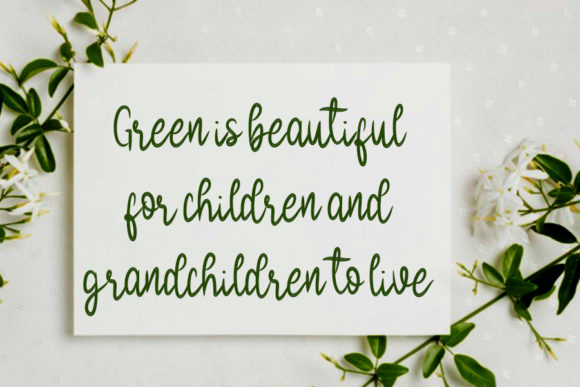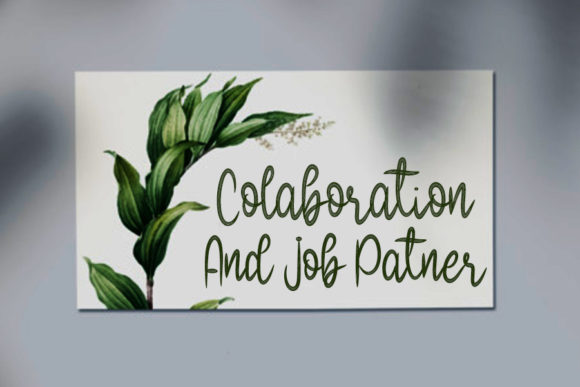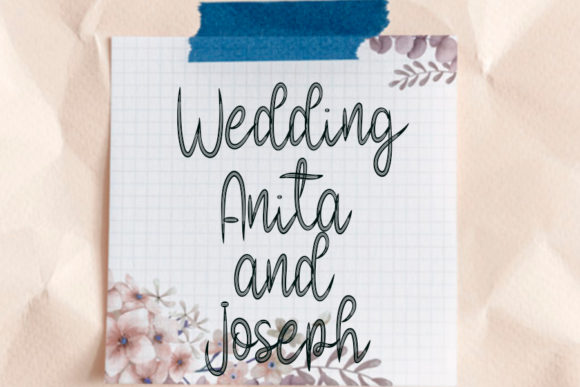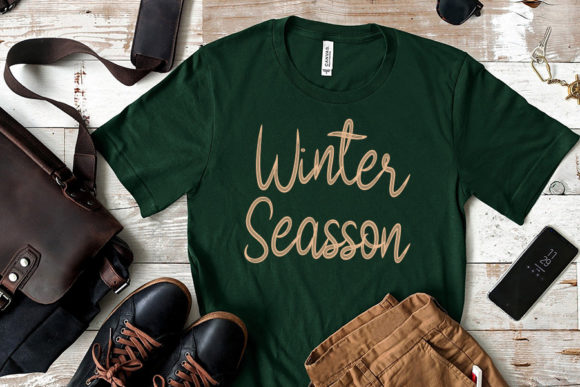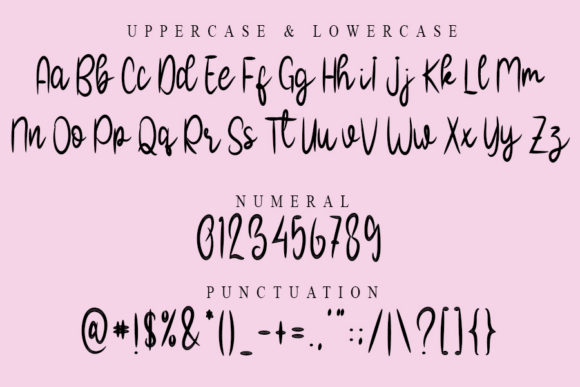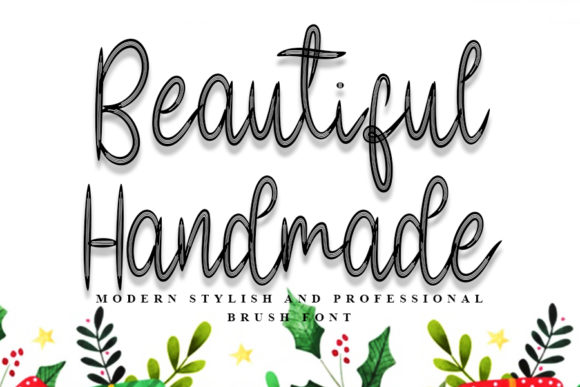
Introducing Beautiful Handmade Font: Elevate Your Designs with a Personal Touch
In the world of digital design, fonts play a crucial role in conveying messages, evoking emotions, and creating a lasting impression. For designers, crafters, and DIY enthusiasts, finding the perfect font can be a game-changer. This is where Beautiful Handmade Font comes in – a unique, handwritten font that adds a touch of personality and realism to your designs. In this article, we’ll explore the features, benefits, and uses of Beautiful Handmade Font, and how it can help you take your designs to the next level.
What is Beautiful Handmade Font?
Beautiful Handmade Font is a carefully crafted, handwritten font that mimics the imperfections and uniqueness of handwriting. Each letter, word, and sentence flows effortlessly, creating a natural and organic look that’s perfect for a wide range of design projects. Whether you’re working on a logo, branding materials, social media graphics, or craft projects, this font is designed to add a personal touch that sets your designs apart.
Key Features of Beautiful Handmade Font
- Unique and Handwritten: Beautiful Handmade Font is a one-of-a-kind, handwritten font that adds a touch of personality to your designs.
- Highly Readable: Despite its handmade nature, this font is highly readable, making it perfect for body text, headings, and titles.
- Versatile: Beautiful Handmade Font can be used for a wide range of design projects, from digital graphics to print materials.
Benefits of Using Beautiful Handmade Font
So, why choose Beautiful Handmade Font for your designs? Here are just a few benefits:
- Adds a Personal Touch: This font adds a touch of personality and humanity to your designs, making them more relatable and engaging.
- Creates a Unique Look: Beautiful Handmade Font helps you stand out from the crowd, creating a unique look that’s all your own.
- Perfect for Branding: This font is ideal for branding materials, such as logos, business cards, and letterheads, where a personal touch can make a big difference.
- Great for Crafting: Beautiful Handmade Font is also perfect for crafters, who can use it to create handmade cards, gift tags, and other paper crafts.
How to Use Beautiful Handmade Font
Using Beautiful Handmade Font is easy! Here are a few tips to get you started:
- Pair it with Other Fonts: Combine Beautiful Handmade Font with other fonts to create a unique and interesting look.
- Use it for Headings and Titles: Beautiful Handmade Font is perfect for headings and titles, where its handmade charm can really shine.
- Make it Your Own: Don’t be afraid to experiment and make the font your own – that’s what makes it so special!